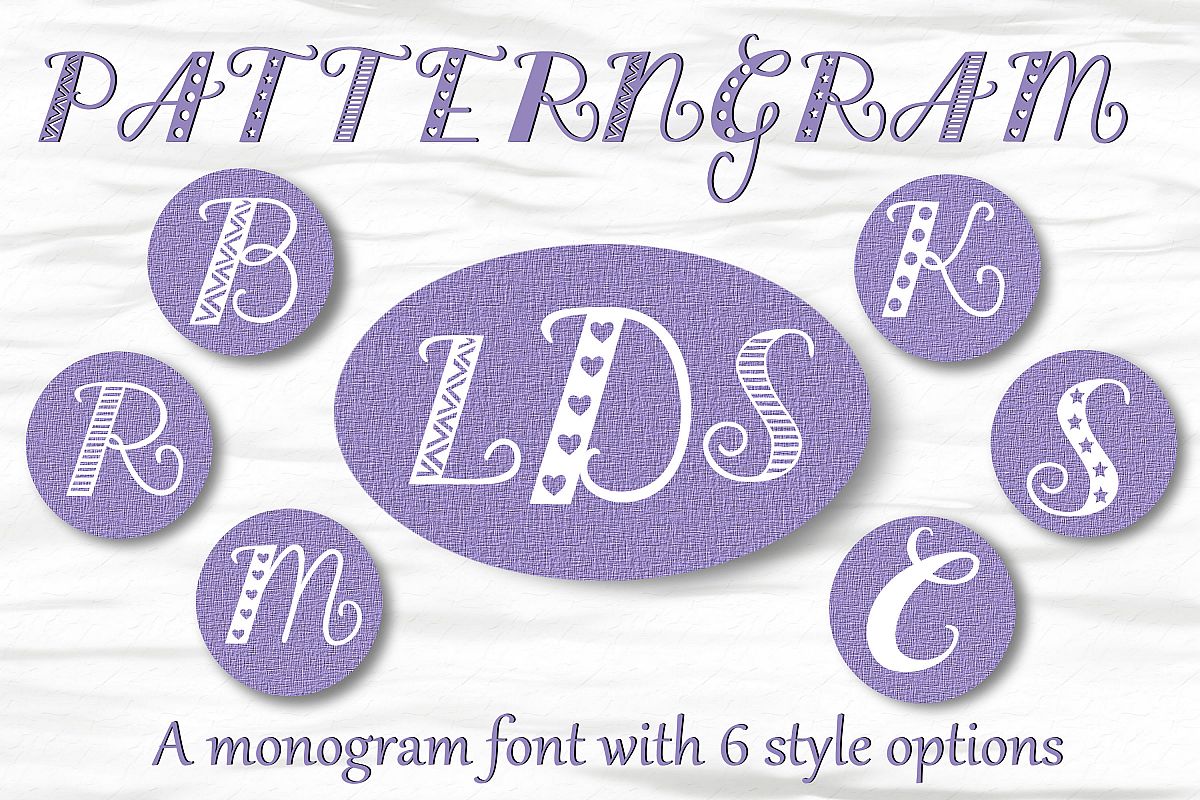
Patterngram - Monogram font with 6 style options
Patterngram is a monogram font made up of 26 uppercase letters. Each letter is available in 6 different styles - 1 solid and 5 patterns. There are 2 styles associated with the uppercase and lowercase letters, and the other 4 styles are available as lowercase alternates.